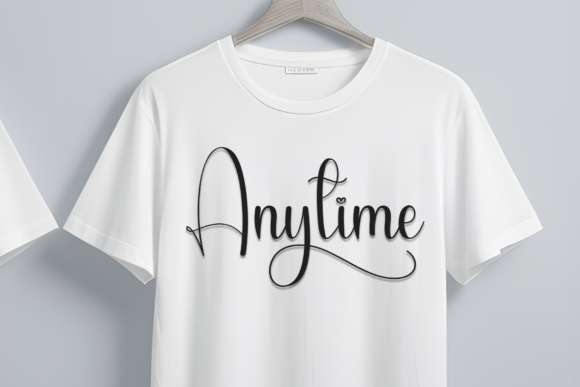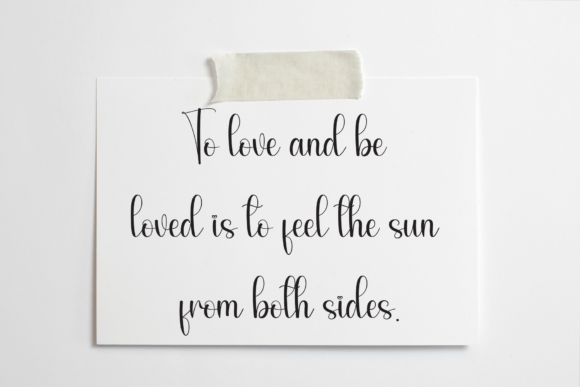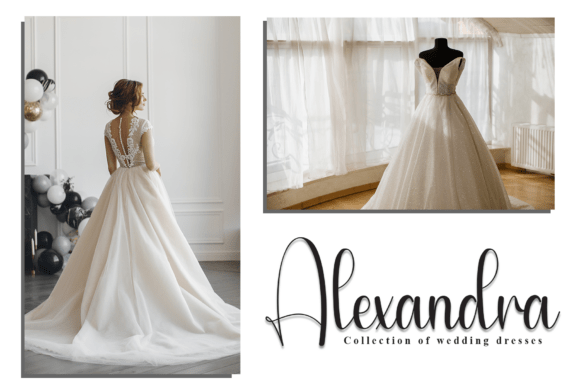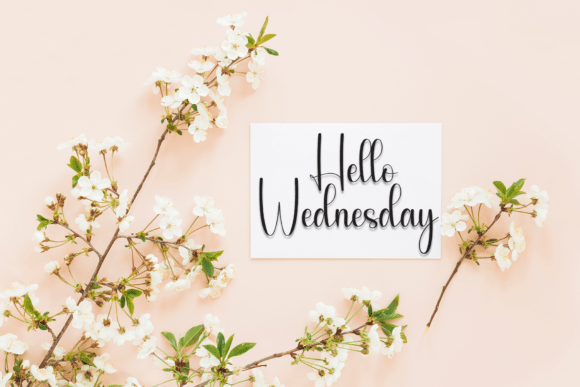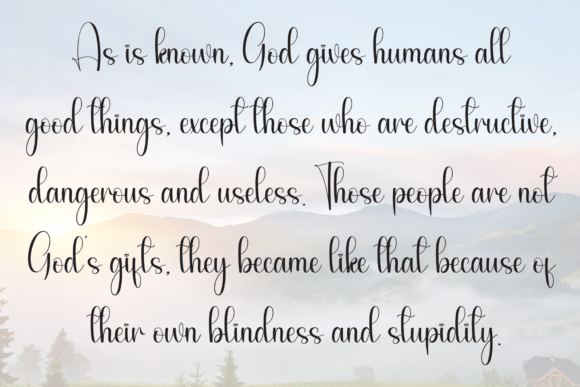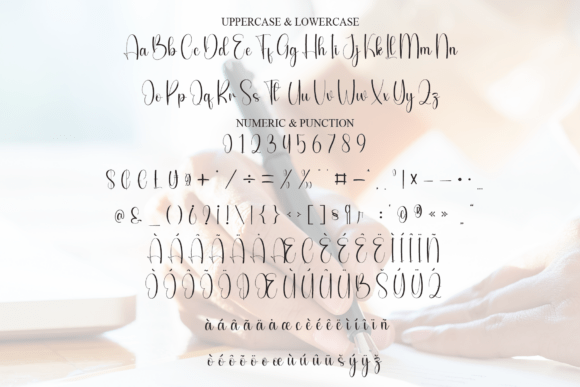
Unleashing the Art of Handwritten Charm: The Autography Font
Remember that moment when you received a handwritten letter from a loved one, and the simple act of holding a physical piece of paper made it feel extra special? It’s a feeling that evokes a sense of warmth and personality, and it’s precisely this feeling that designers strive to capture in their work. The Autography Font is a stylish handwritten script that blends modern elegance with a playful touch, making it the perfect tool for adding a personal touch to any design project.
Whether you’re creating a logo, packaging, or invitation, the Autography Font brings a level of sophistication and creativity that’s hard to achieve with traditional fonts. Its fluid strokes and charming curves make it an ideal choice for designers looking to add a unique and emotive element to their work. With the Autography Font, you can breathe new life into your designs and make them truly stand out.
Autography Font Key Features
• Unique Characteristics: Autography Font features a unique blend of handwritten and calligraphic styles, with subtle flair and texture, adding a touch of elegance to any design.
Autography Font Review
As a designer, I was excited to dive into the world of Autography Font. ✨ This script font is a real showstopper, offering a unique blend of elegance and sophistication. I particularly love how it flows across the page, making it perfect for titles and headings. ✨ The subtle flair at the end of each letter adds a touch of whimsy, while the overall design feels polished and refined.
One of the standout features of Autography Font is its versatility. ✨ It works beautifully in both digital and print formats, making it a great choice for a wide range of projects. Whether you’re designing a wedding invitation or a marketing brochure, Autography Font is sure to impress.
• ⚠️ Limited character set: While the font has a wide range of characters, it’s not a full Unicode font. This may cause issues if you need to use certain special characters or languages.
• ⚠️ Not ideal for body text: While Autography Font is perfect for headings and titles, it’s not the best choice for body text. The font is quite ornate, and can be difficult to read in large blocks of text.
Overall, I’m thoroughly impressed with Autography Font. While it may have some limitations, its unique design and versatility make it a valuable addition to any designer’s toolkit. I would highly recommend it for any project where a touch of elegance and sophistication is needed.
Autography Font is perfect for:
• Creating eye-catching titles and headings.
• Adding a touch of elegance to wedding invitations and stationery.
• Designing unique and creative social media graphics.
Can I customize Autography Font to fit my specific design needs?
Yes, Autography Font is highly customizable. You can adjust the font size, color, and style to fit your design requirements. Additionally, Autography Font supports OpenType features, such as ligatures, swashes, and alternate characters, which can be accessed through your design software.